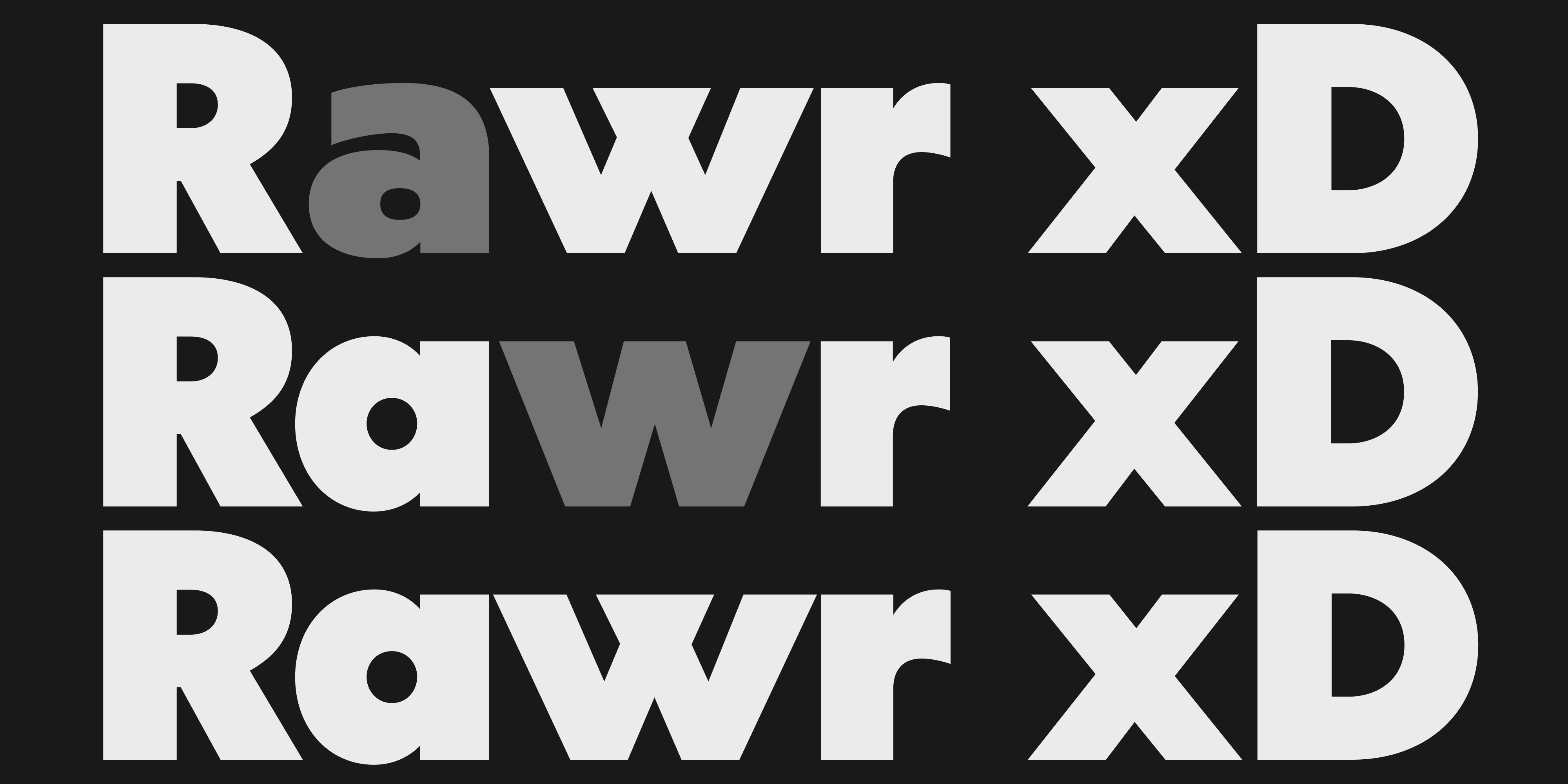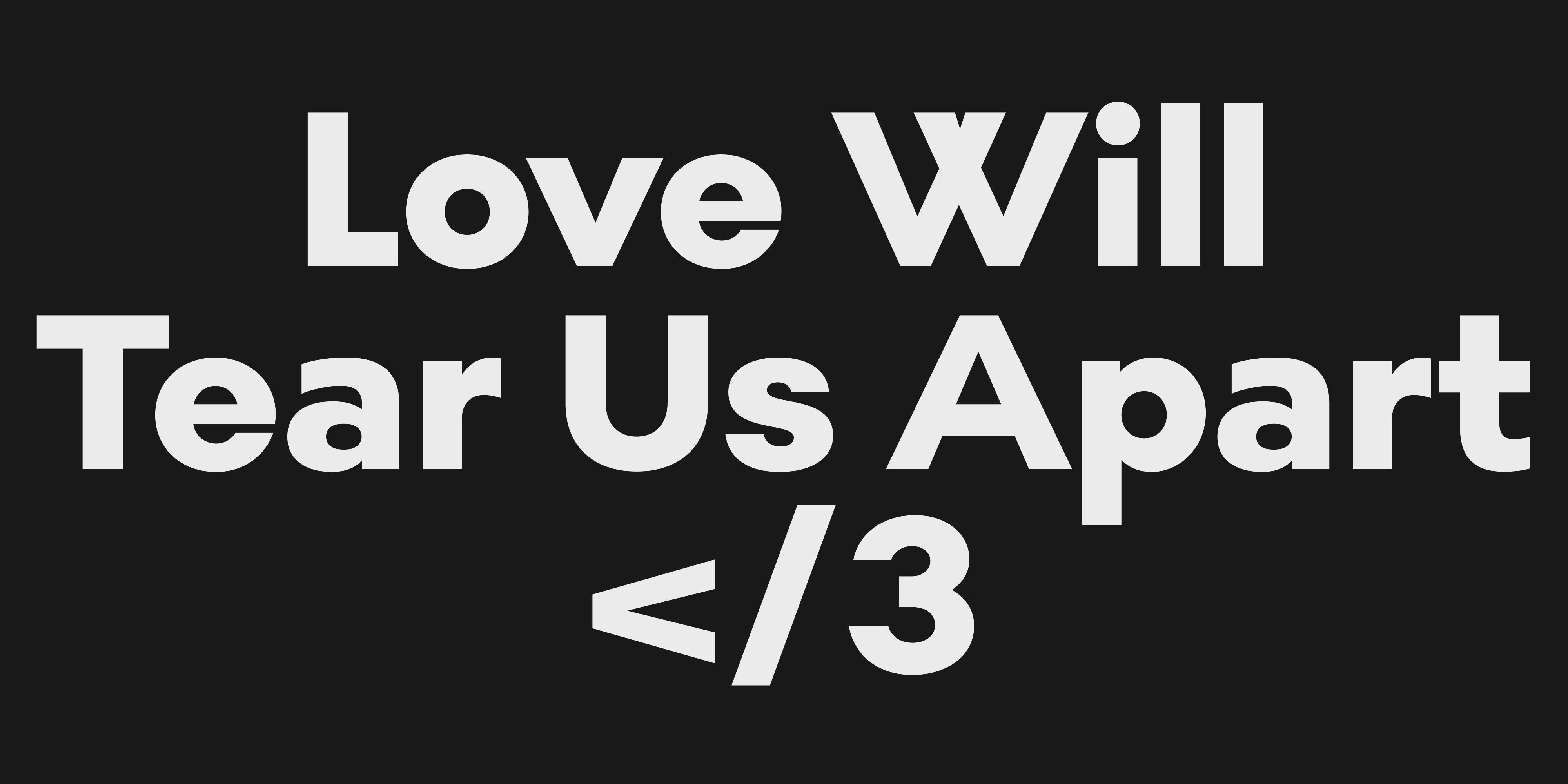
Super clean, functional and Nordic. This highly legible typeface was originally designed for an old Danish fashion house but has found new life in recent times. With its geometric appearance, it is diverse and approachable making it ideal for long body text.